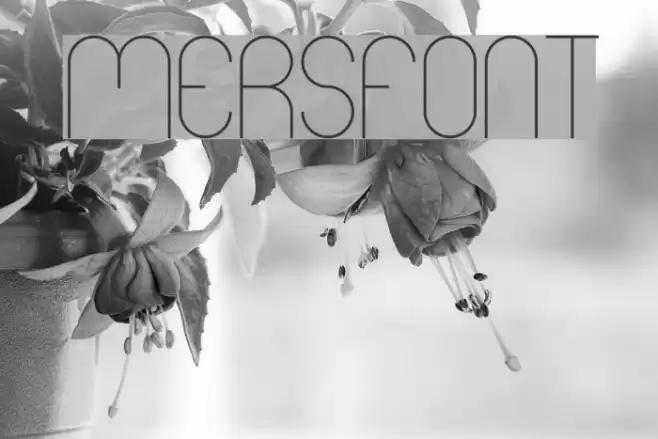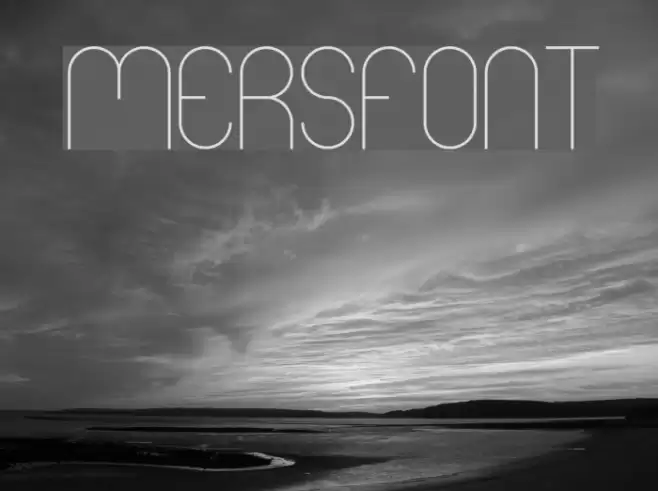
Mers Font
Mers Description
This font features a modern, minimalist design with clean lines and a geometric structure. The characters are constructed with a consistent stroke width, giving it a uniform appearance. The uppercase letters have a tall, narrow form, while the lowercase letters maintain a similar style, enhancing readability. The font's simplicity and elegance make it versatile for various design applications. Its unique style is characterized by a blend of straight lines and subtle curves, creating a harmonious balance. The overall aesthetic is sleek and contemporary, suitable for projects that require a sophisticated yet understated look.
A modern, minimalist font with clean lines and geometric structure from Uncategorized fonts.